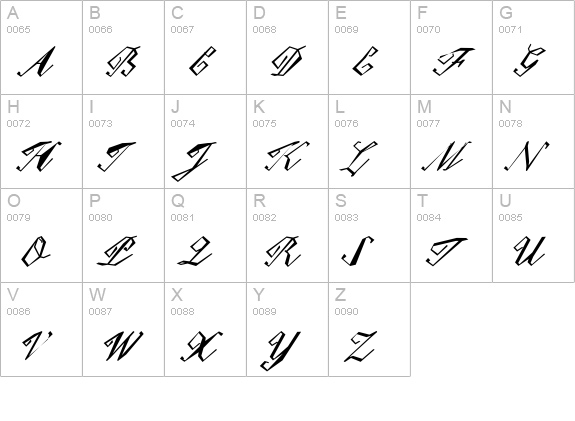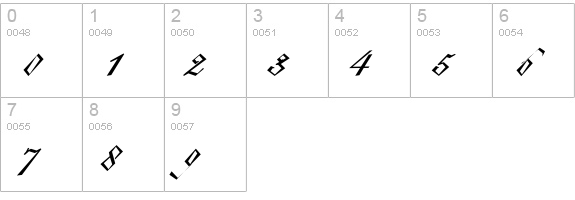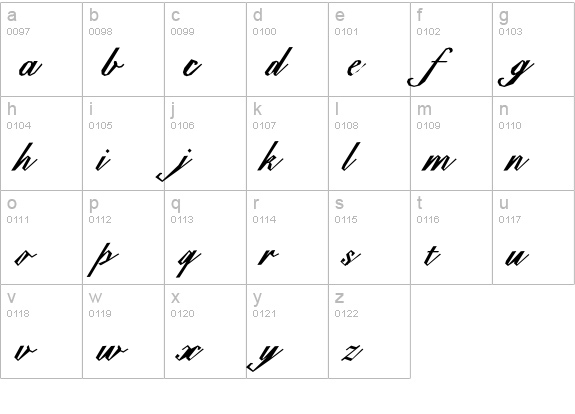
Epaulet Font Details
Epaulet font is a sleek and modern typeface that exudes sophistication and elegance. Its clean lines and stylish curves make it perfect for a wide range of design projects, from branding to editorial layouts. The versatility of Epaulet font allows it to be used for both headings and body text, ensuring a cohesive and polished look throughout your designs. One of the best things about Epaulet font is that it is completely free to download. You can easily access this stunning typeface at FontsMarket.com, where you can add it to your font library and start using it in your projects right away. With its timeless design and professional aesthetic, Epaulet font is sure to elevate your designs and make them stand out from the crowd.